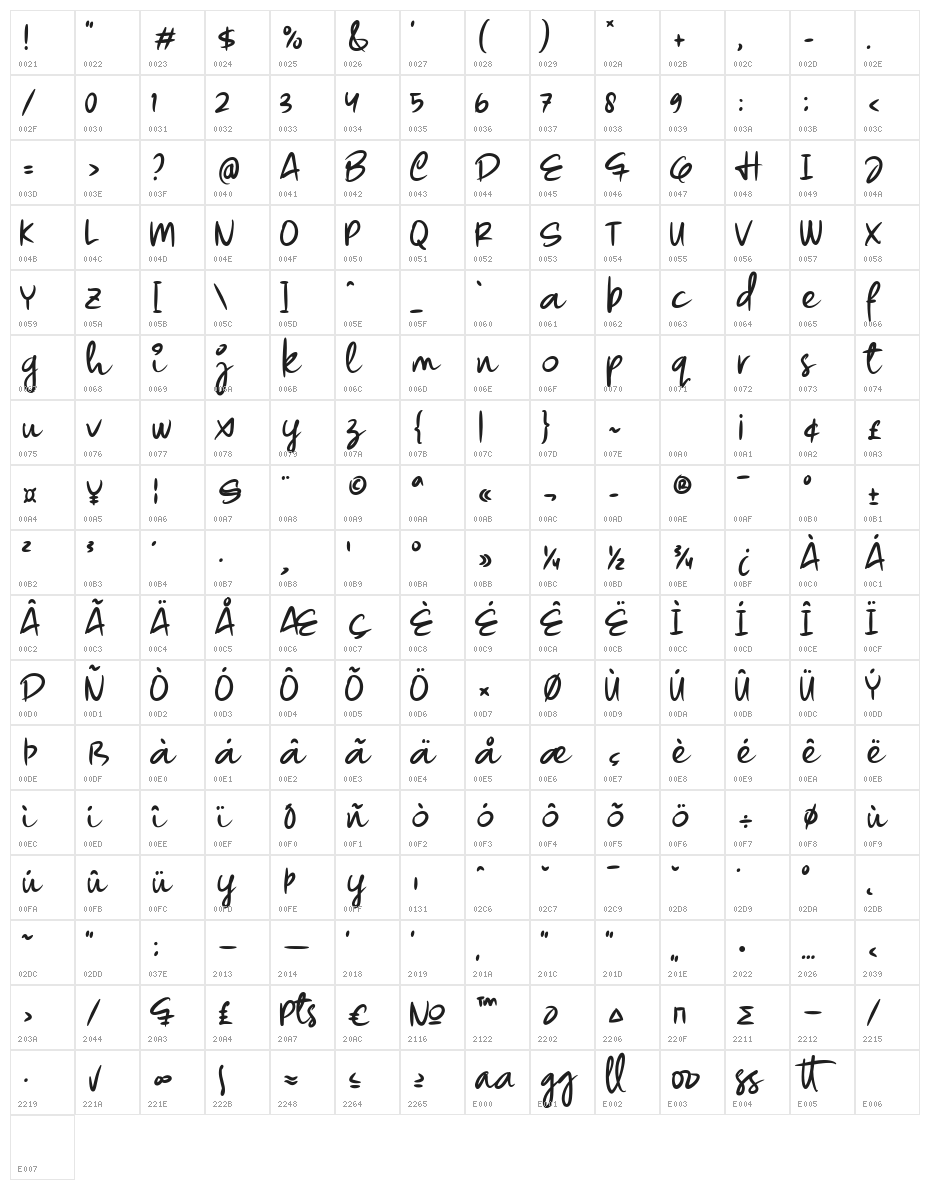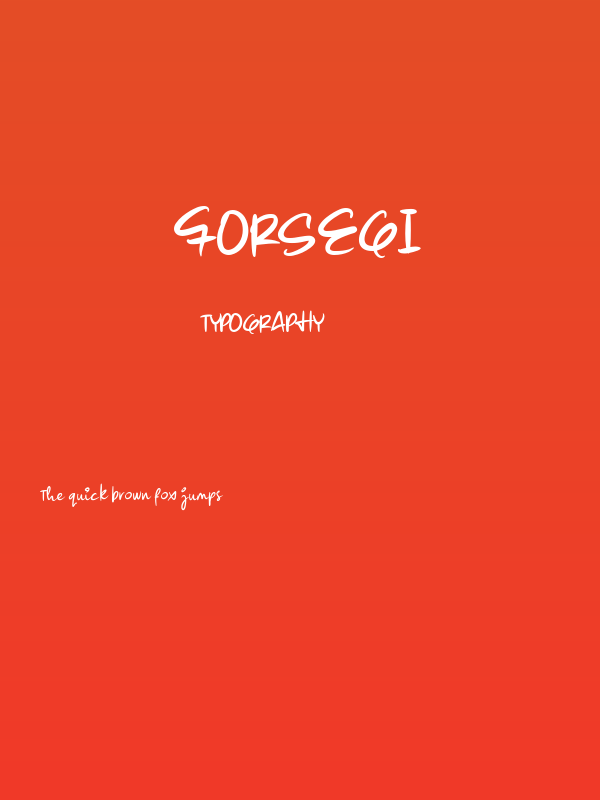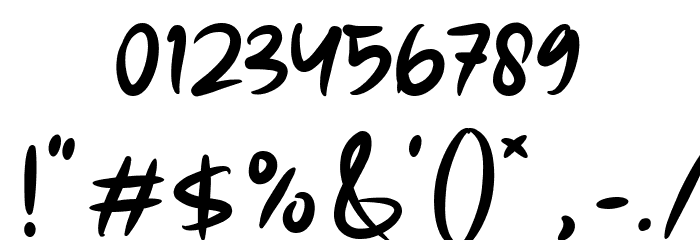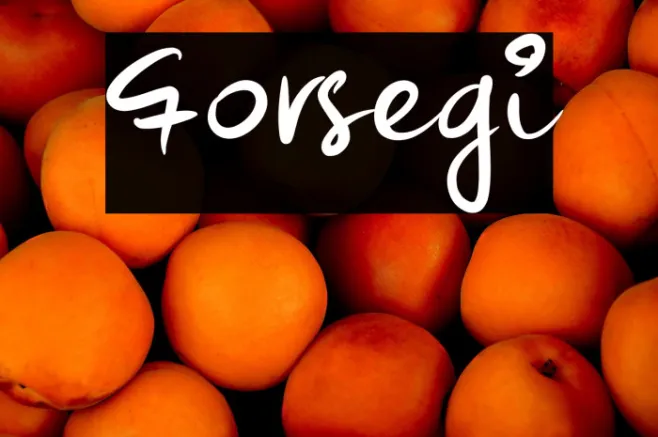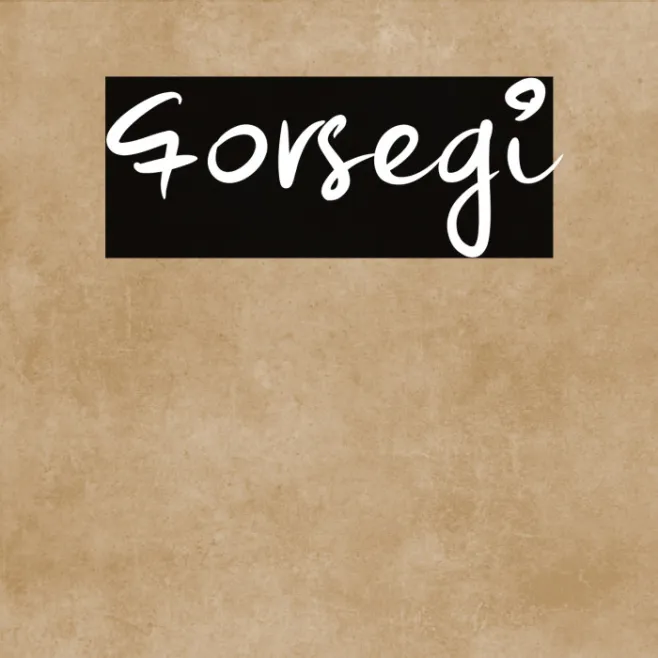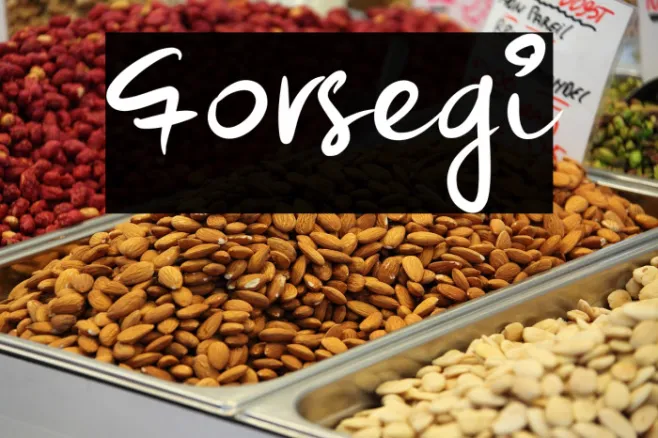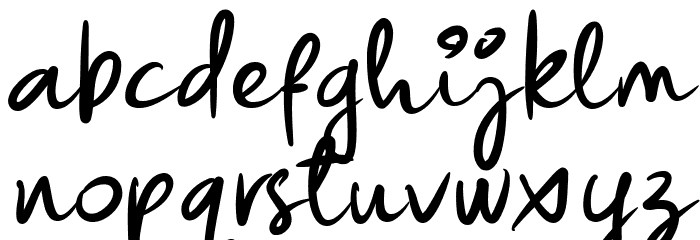
Forsegi Font
Forsegi Description
This font features a lively and dynamic handwritten style, characterized by its fluid and organic strokes. The uppercase letters are bold and expressive, while the lowercase letters maintain a consistent flow, adding a personal touch. The numerals are clear and distinct, complementing the overall aesthetic. Special characters are creatively integrated, enhancing the font's versatility. The playful nature of the design makes it ideal for projects that require a personal and informal touch, such as greeting cards, invitations, and creative branding.